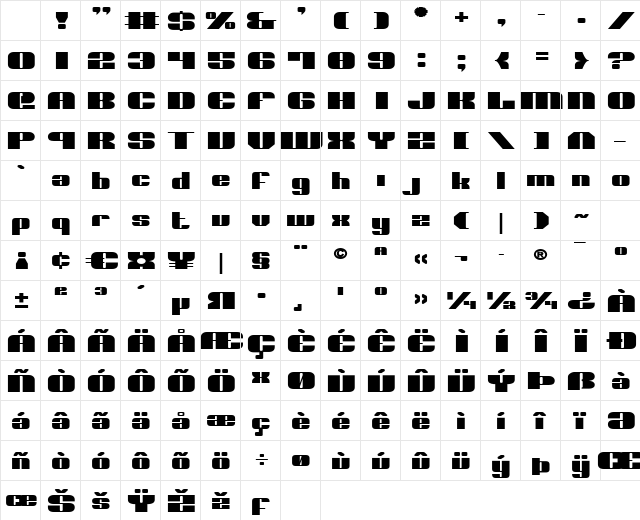
Complete Nolo Contendre Expanded glyph index. Displaying only characters natively supported by Nolo Contendre Expanded font.
Nolo Contendre is a composed and adaptable typeface that performs quietly and consistently across a wide range of design contexts.